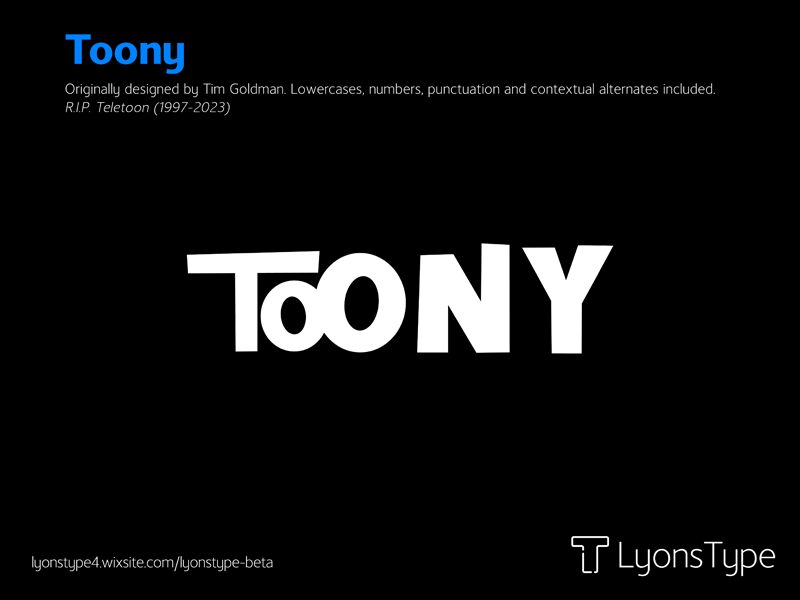
Toony Black, a delightful addition to the Toony font family by LyonsType, brings a playful charm to the display font category. This cartoon-inspired typeface boasts a bold weight that commands attention while maintaining an approachable warmth. Its semi-expanded width contributes to its friendly presence, making it perfect for engaging headlines and eye-catching slogans.
Crafted with creativity in mind, Toony Black's aesthetic appeal lies in its ability to inject lighthearted fun into any design. The style evokes the whimsy of classic animation and modern-day cartoons, offering designers a versatile tool for projects ranging from children's books to dynamic branding campaigns.
The robust yet clean lines of Toony Black ensure legibility across various mediums, while its distinctive character adds personality to every word. This font is an excellent choice for those seeking to infuse their creative endeavors with a touch of joy and vivacity.
Originally designed by Tim Goldman. Lowercases, numbers, punctuation and contextual alternates included.
R.I.P Teletoon (1997-2023)